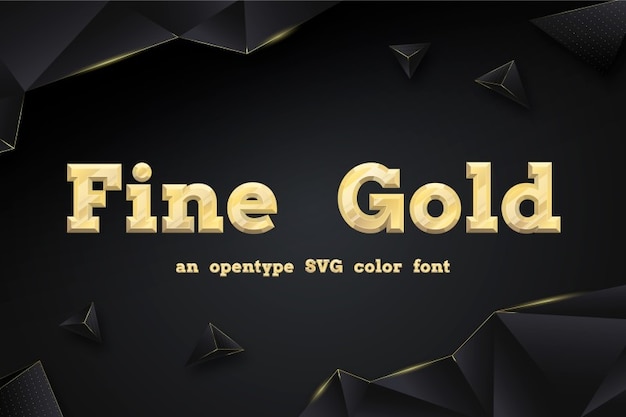
We welcome Fine Gold! The bold and contemporary character with hard edges of this shiny OpenType SVG color font makes it an ideal choice for headings, headlines, posters, branding, packaging, titles, and logos. Download it now!